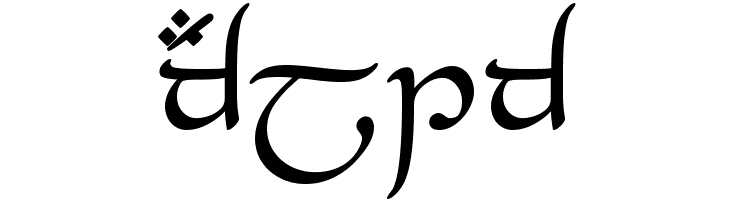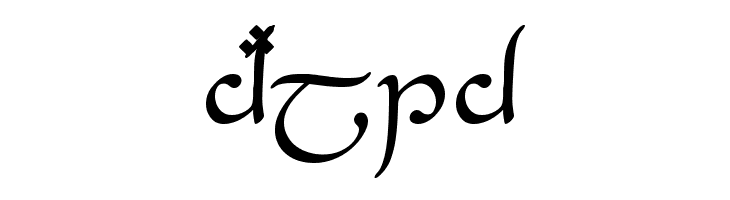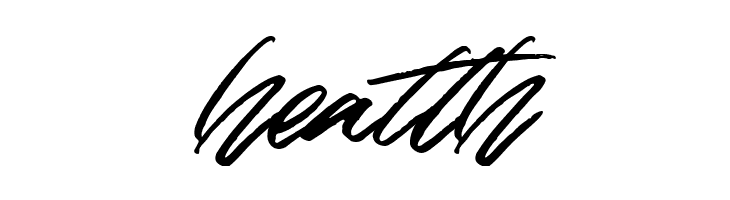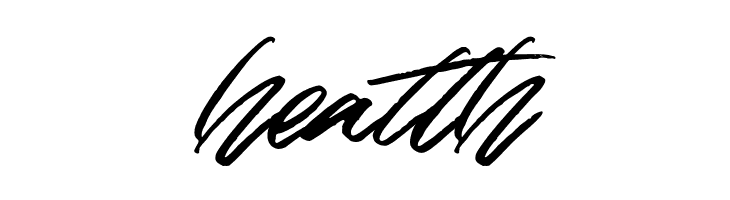
An elegant, flowing script with intricate curves and a mystical appearance.
An artistic and decorative script with a mystical, ancient appearance.
A bold, expressive script font with dynamic, cursive letterforms.
A dynamic, cursive script font with bold, expressive strokes and a handwritten style.
An abstract, geometric font with a futuristic and artistic design.
A modern, geometric font with clean lines and a minimalist aesthetic.
A geometric, angular font with sharp edges and a modern style.
A lively, cursive handwritten font with fluid strokes and elegant connections.
A bold, geometric font with a strong, athletic aesthetic, ideal for sports-themed designs.
A rugged, stencil-like font with a distressed, spray-painted texture.